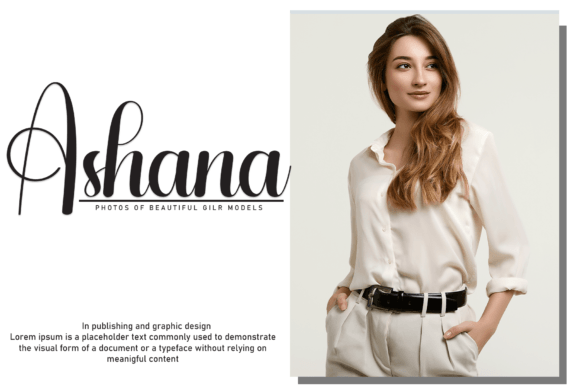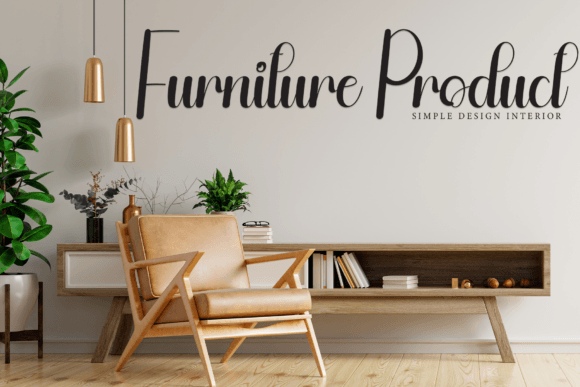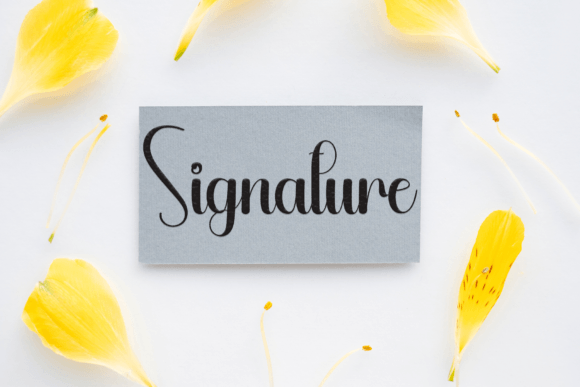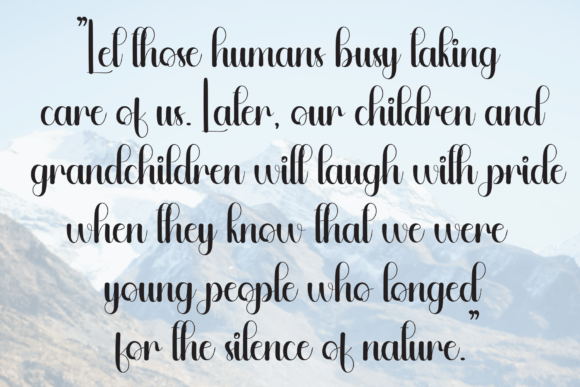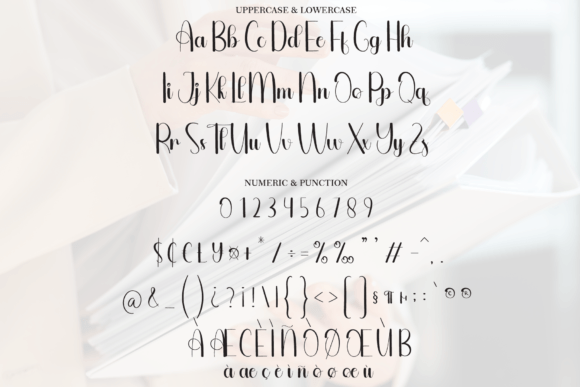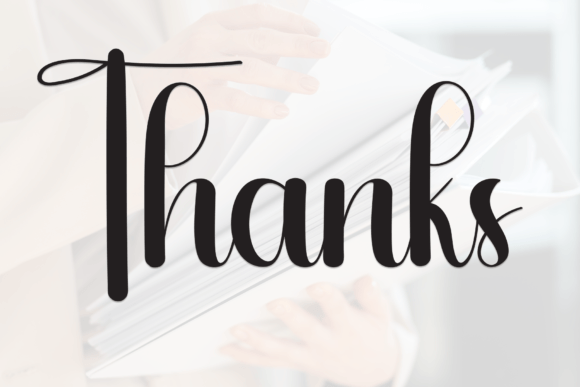
The Sweetest Handwritten Touch: Attachment Font
Have you ever been brainstorming design ideas and stumbled upon the perfect handwritten font that instantly transports you to a world of warmth and creativity? For designers, this moment is pure bliss. It’s the spark that ignites the perfect design concept, and Attachment Font is one of those magical fonts that can evoke this feeling.
Attachment Font is a charming, friendly handwritten font that adds a fresh and neat touch to any design. It’s perfect for writing wedding invitations, cards, or any other project that needs a fun and playful vibe. Whether you’re a seasoned designer or just starting out, Attachment Font is a valuable addition to your toolkit.
With its versatility and charm, Attachment Font is a must-have for designers looking to add a personal touch to their designs. Whether you’re working on a romantic wedding invitation or a heartfelt birthday card, Attachment Font is sure to make your design stand out.
Key Features of Attachment Font
- Unique Characteristics: Attachment Font features a distinctive, modern design with a focus on clean lines and subtle nuances, making it ideal for use in digital and print media.
- Font Style and Weight: Attachment Font includes a range of font styles and weights, from light to bold, allowing users to customize their text to suit different design needs.
Attachment Font Review
Overall, I think Attachment Font has some great qualities that make it a solid choice for designers, but it also has some limitations that might hold it back.
- Unique aesthetic: Attachment Font has a distinctive, handwritten feel that can add a touch of personality to designs.
- Wide language support: The font includes a wide range of languages, making it a great choice for global projects.
- High-quality glyphs: The font’s glyphs are well-designed and visually appealing, making it a pleasure to work with.
- Legibility issues: In some cases, the font can be difficult to read, especially at smaller font sizes.
- Limited customization options: While the font has some built-in styles and variations, it can be tricky to customize to fit specific design needs.
Overall, I think Attachment Font is a solid choice for designers who want a unique, handwritten look. While it may not be perfect, its strengths make it a great addition to any design toolkit. With a little patience and experimentation, designers can get the most out of this font and create some truly stunning designs.
Use Attachment Font for creative and expressive text elements, such as:
– Quotes and captions
– Titles and headings
– Logos and branding elements
Experiment with different font sizes, colors, and styles to achieve the desired look and feel.